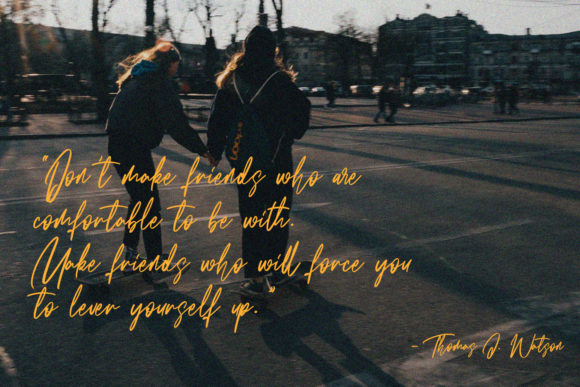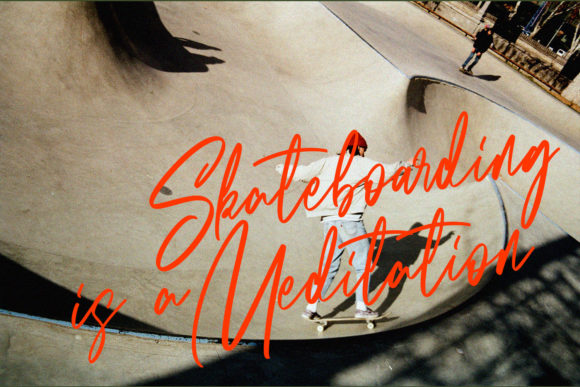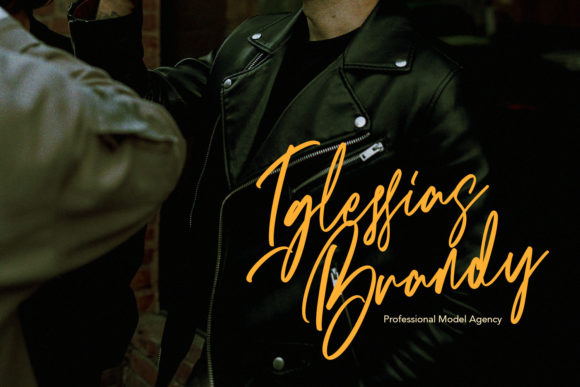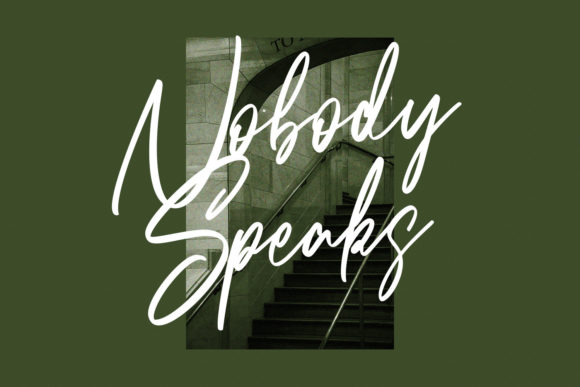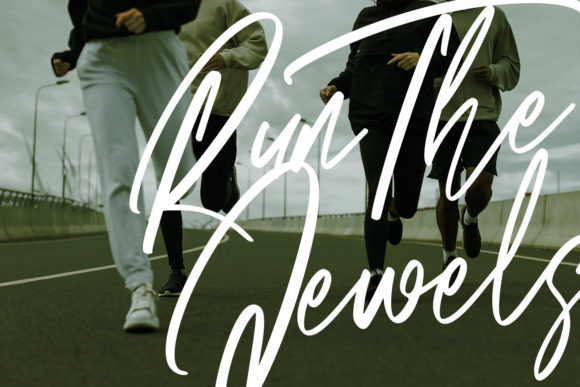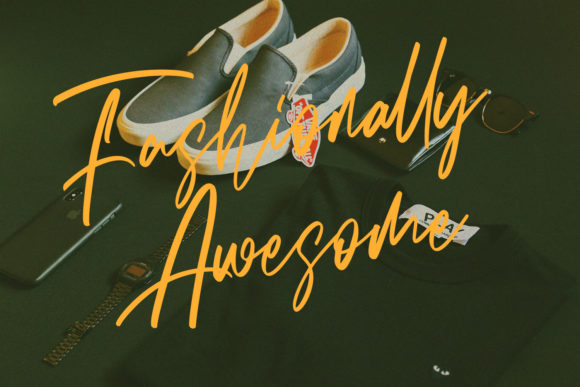
Introducing Heavenllys Font: Elevate Your Designs with Elegance and Versatility
In the world of typography, fonts play a crucial role in conveying the tone and style of a design. For those seeking a touch of elegance and sophistication, Heavenllys Font is an exquisite choice. This fancy, casual, and thin lettered script font is designed to add a stylish flair to various creations, making it a perfect fit for designers and crafters looking to elevate their work.
What Makes Heavenllys Font Stand Out?
Heavenllys Font boasts an incredibly versatile style that can be applied to a wide range of projects. Its unique blend of fancy and casual elements makes it an ideal choice for:
- Wedding Invitations: Create stunning wedding invites that set the tone for a memorable and elegant celebration.
- Stationary Art: Add a touch of sophistication to your stationery, making it perfect for personal correspondence or business use.
- Social Media Posts: Elevate your social media presence with eye-catching posts that grab attention and leave a lasting impression.
- Branding and Packaging: Use Heavenllys Font to create a cohesive brand identity that exudes elegance and refinement.
Key Features of Heavenllys Font
Heavenllys Font comes with a range of features that make it a valuable addition to any designer’s toolkit:
- Fancy and Casual: A perfect blend of elegance and approachability, making it suitable for various design applications.
- Thin Lettered Script: Delicate and refined, adding a touch of sophistication to any design.
- Versatile: Can be used for a wide range of projects, from wedding invitations to social media posts.
- Easily Readable: Despite its delicate nature, Heavenllys Font remains easily readable, making it perfect for body text and headlines.
Tips for Using Heavenllys Font Effectively
To get the most out of Heavenllys Font, consider the following tips:
- Pair with Complementary Fonts: Combine Heavenllys Font with sans-serif fonts for a modern contrast or serif fonts for a classic look.
- Experiment with Colors: Try pairing Heavenllys Font with pastel shades for a soft, romantic look or bold colors for a statement piece.
- Play with Size and Spacing: Adjust the font size and spacing to create visual hierarchy and add emphasis to key elements.
Who Can Benefit from Heavenllys Font?
Heavenllys Font is an excellent choice for:
- Graphic Designers: Looking to add a touch of elegance to their designs, from branding to marketing materials.
- Stationery and Paper Crafters: Creating beautiful stationery, cards, and invitations that require a personal touch.
- Social Media Managers: Seeking to elevate their social media presence with stylish and engaging content.
- Wedding Planners and Stylists: Designing wedding invitations, decor, and other materials that require a sophisticated look.
Heavenllys Font is a versatile and elegant script font that can elevate any design with its fancy, casual, and thin lettered style. With its wide range of applications, from wedding invitations to social media posts, it’s an excellent addition to any designer’s toolkit. By incorporating Heavenllys Font into your designs, you’ll be able to create stunning and sophisticated pieces that leave a lasting impression.